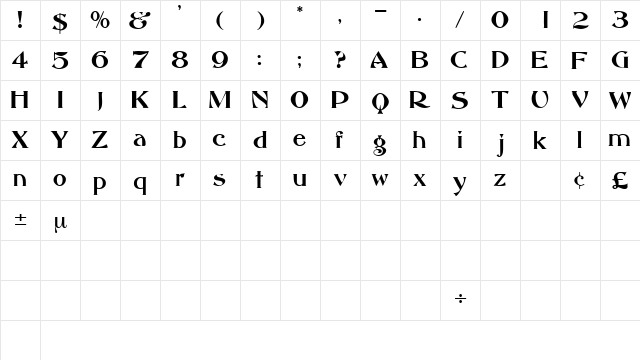
MandritaDisplaySSK Regular
Design Context for MandritaDisplaySSK Typeface
MandritaDisplaySSK is built around its visual character rather than neutral utility — its distinctive forms are designed to make an impression at display sizes.
Font Pairing: Pair with a clean neutral sans-serif for body copy to let MandritaDisplaySSK's character lead without overwhelming the composition.
Pro Tip: Treat MandritaDisplaySSK as the centrepiece of your typographic hierarchy. One strong heading set in a decorative face can carry an entire layout.